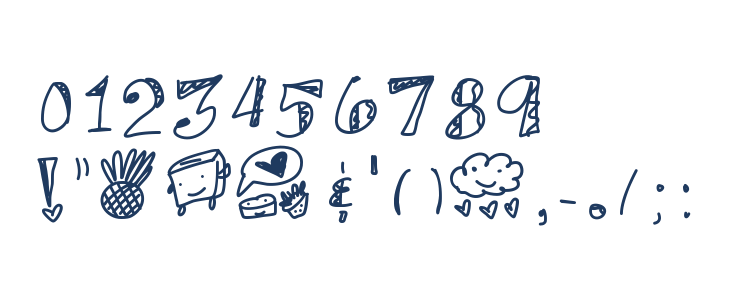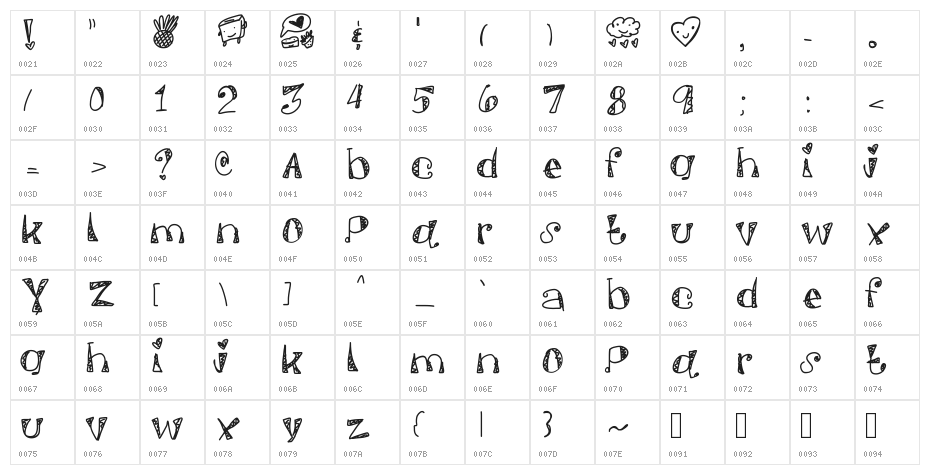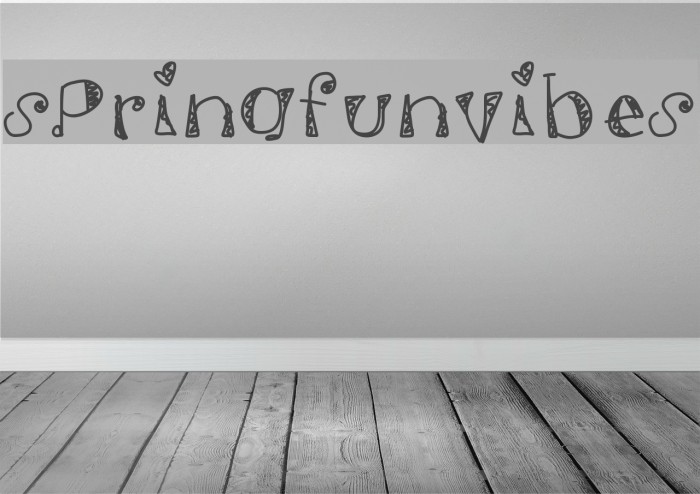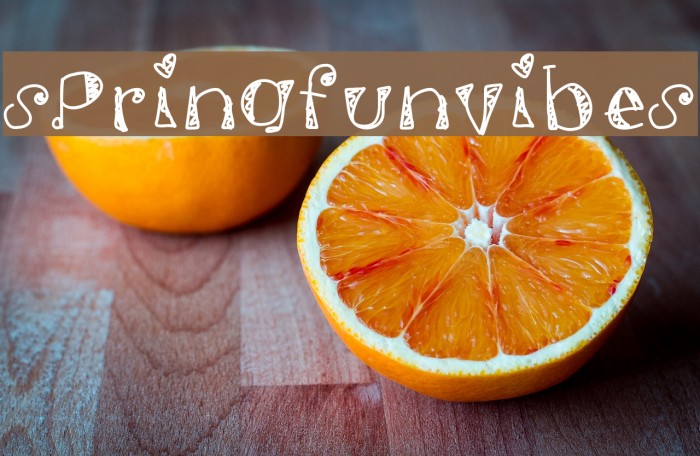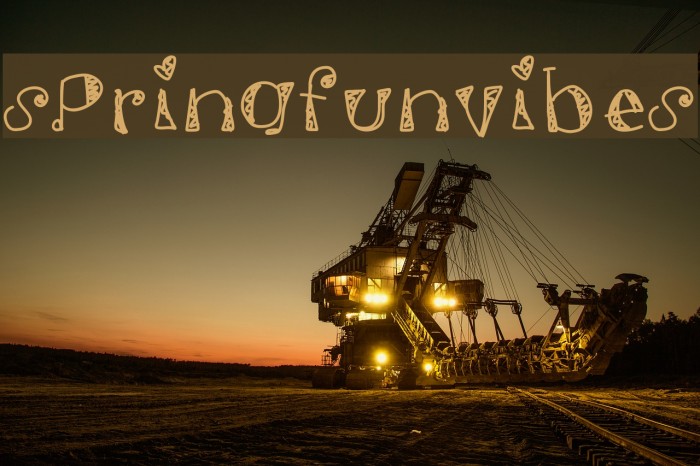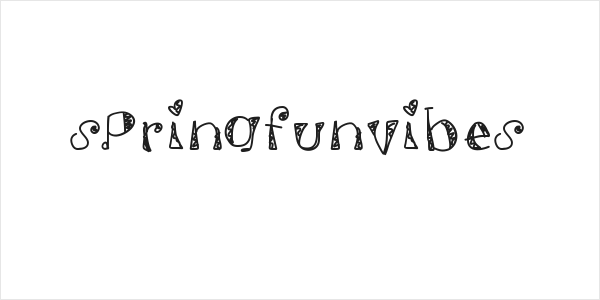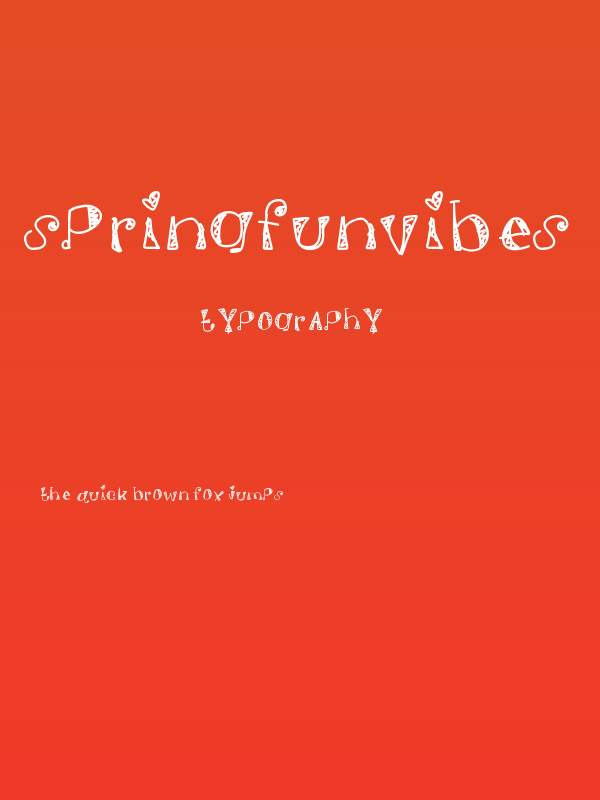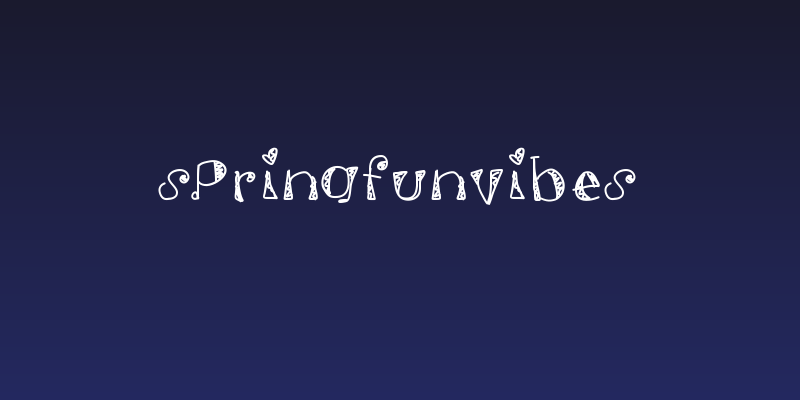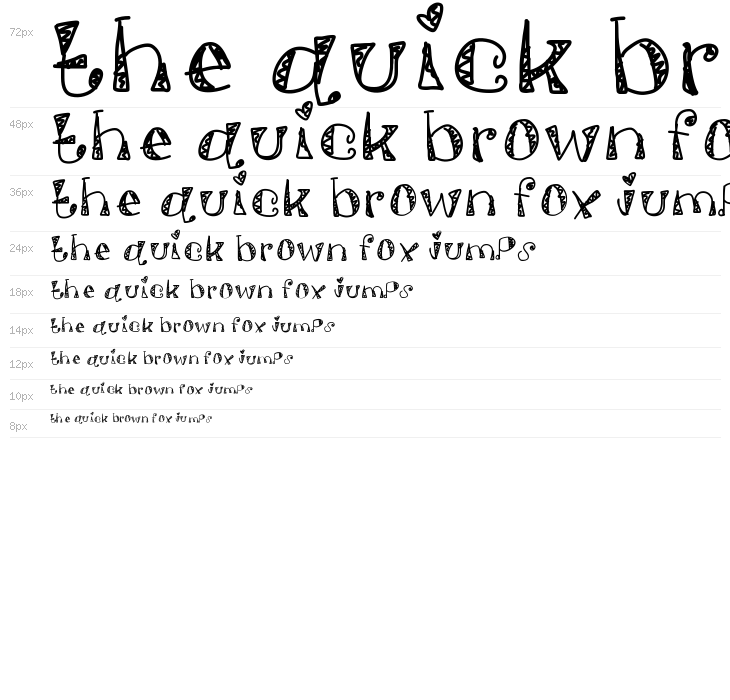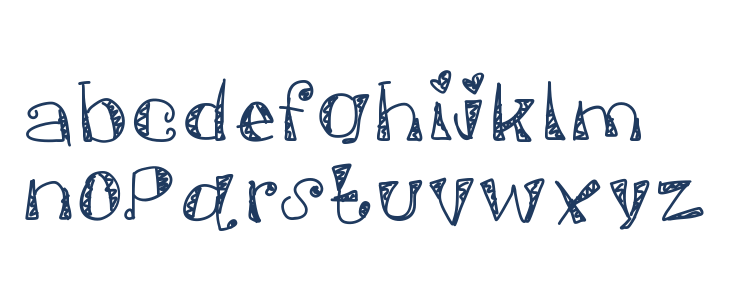
SpringFunVibes Font
SpringFunVibes Description
This playful and whimsical font features a hand-drawn style with decorative elements that add a sense of fun and creativity. Each character is uniquely crafted with patterns and embellishments, such as hearts and dots, giving it a lively and energetic feel. The letters have a casual, informal appearance, making them perfect for projects that aim to convey joy and spontaneity. The font includes a full set of uppercase and lowercase letters, numbers, and a variety of special characters, each maintaining the same playful aesthetic. The overall design is bold and eye-catching, ideal for capturing attention and adding a touch of personality to any design.
| Overall Style | Whimsical, Playful, Decorative |
| Proposed Projects | Ideal for children's books, party invitations, playful branding, and creative posters. |